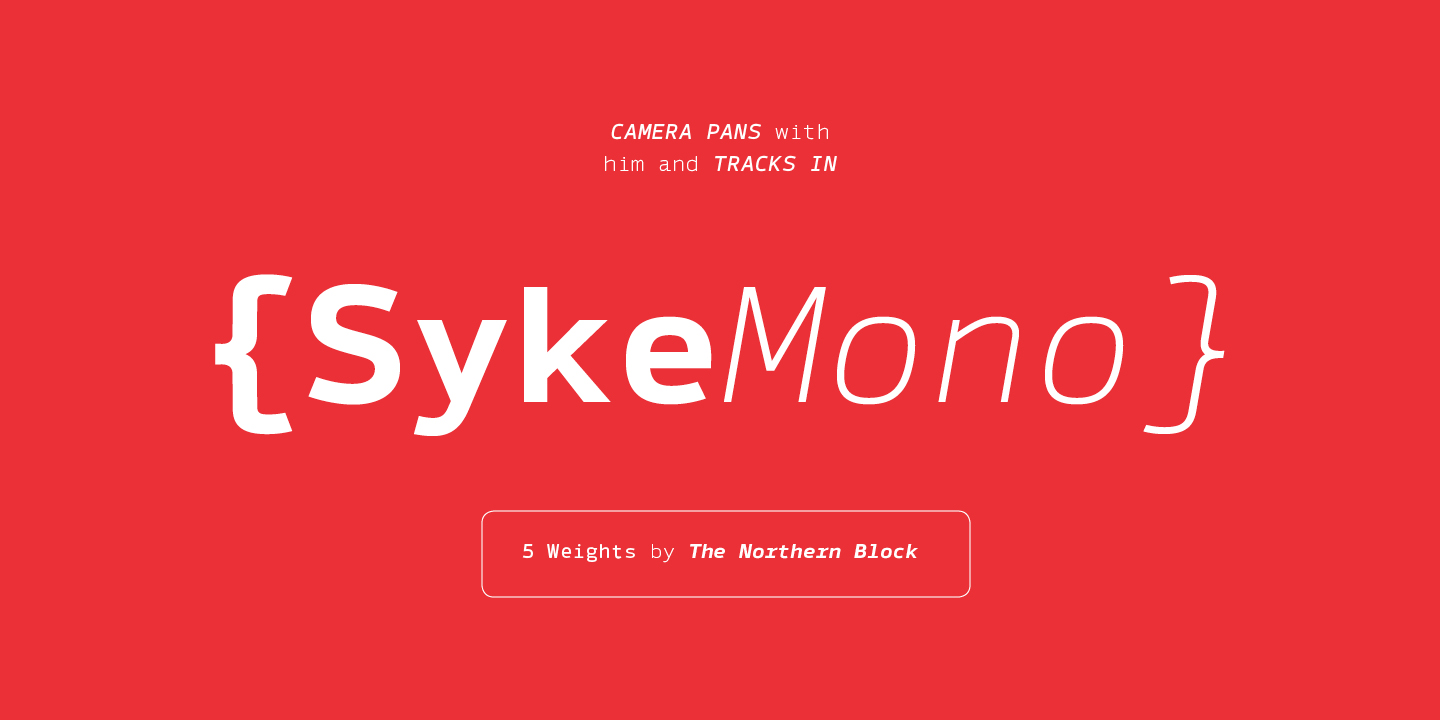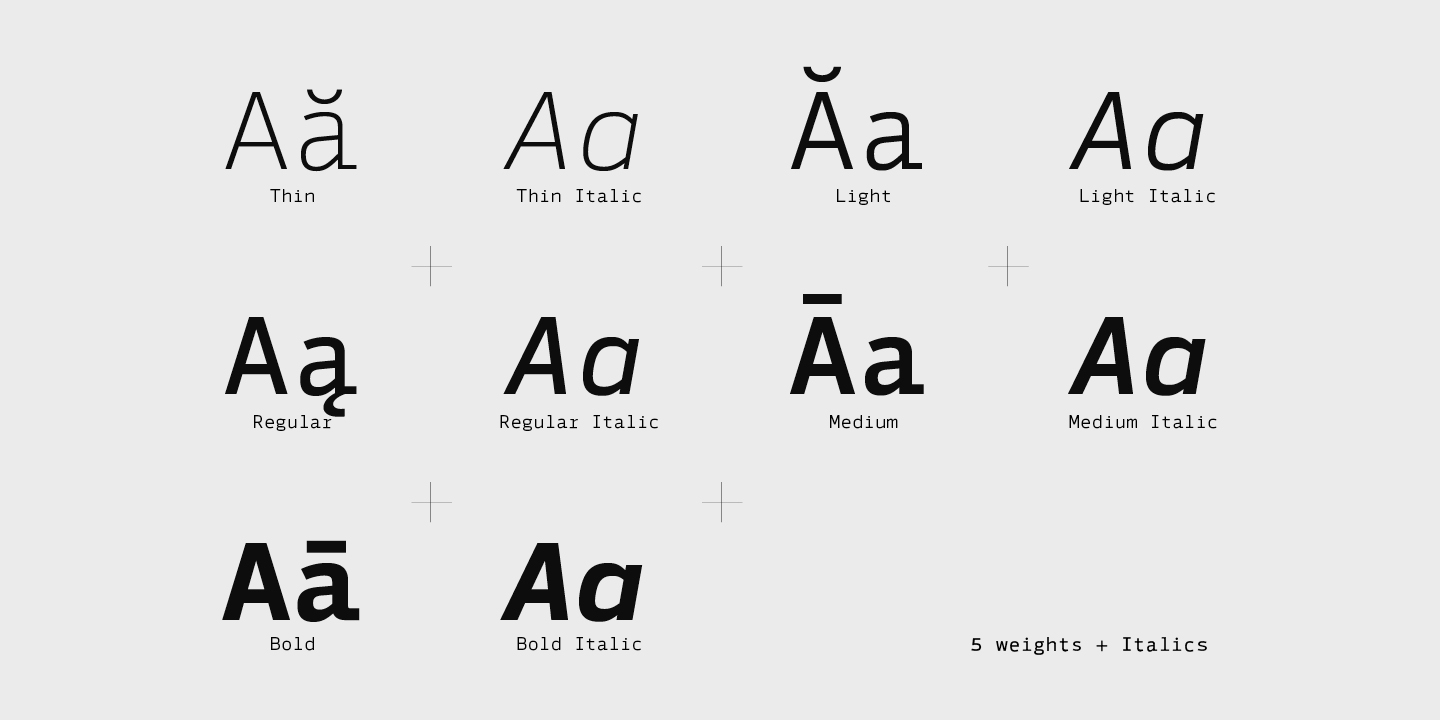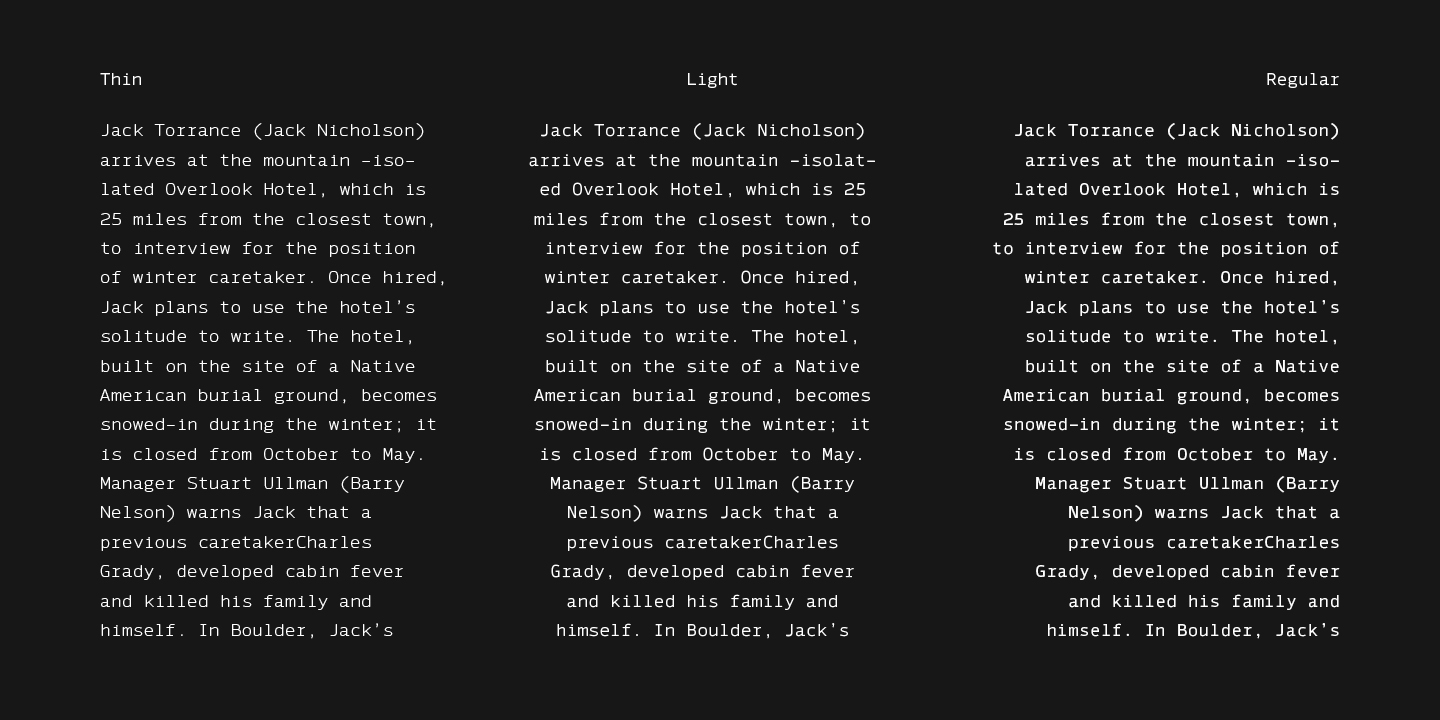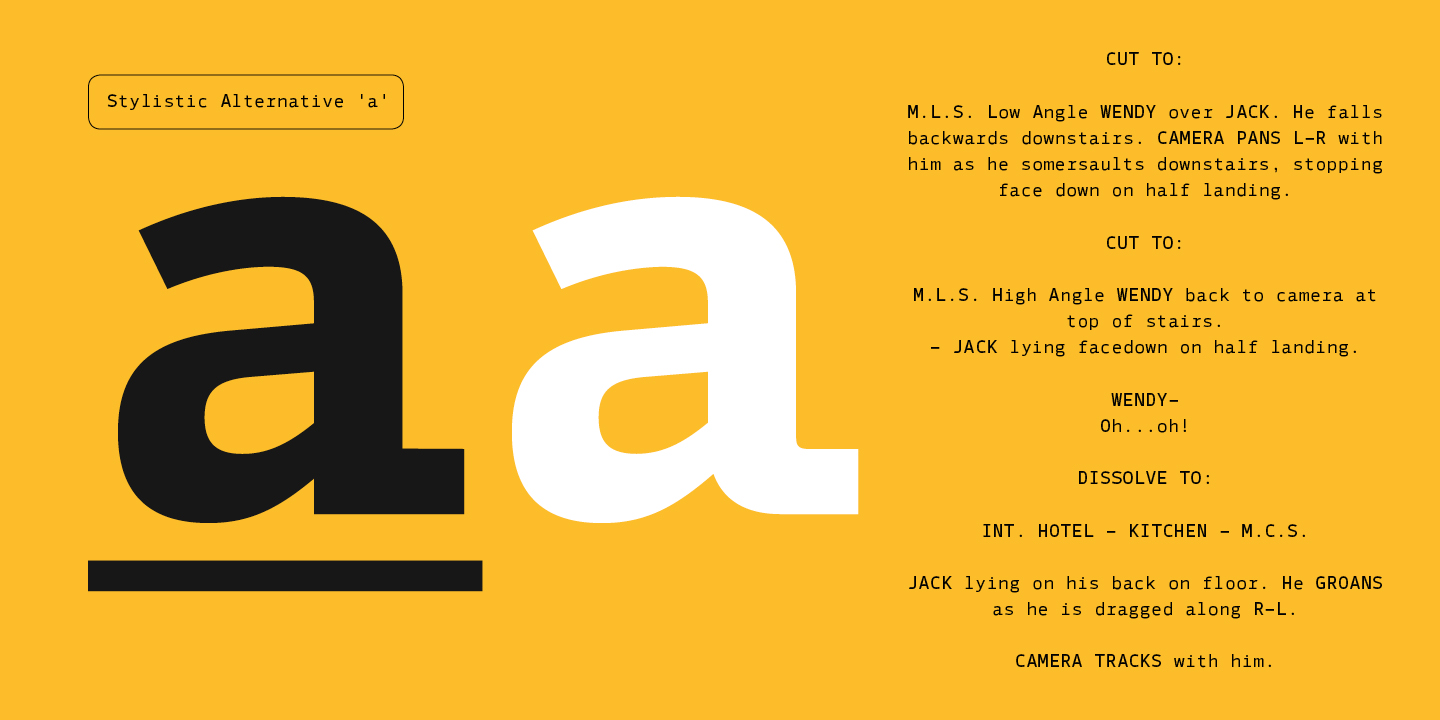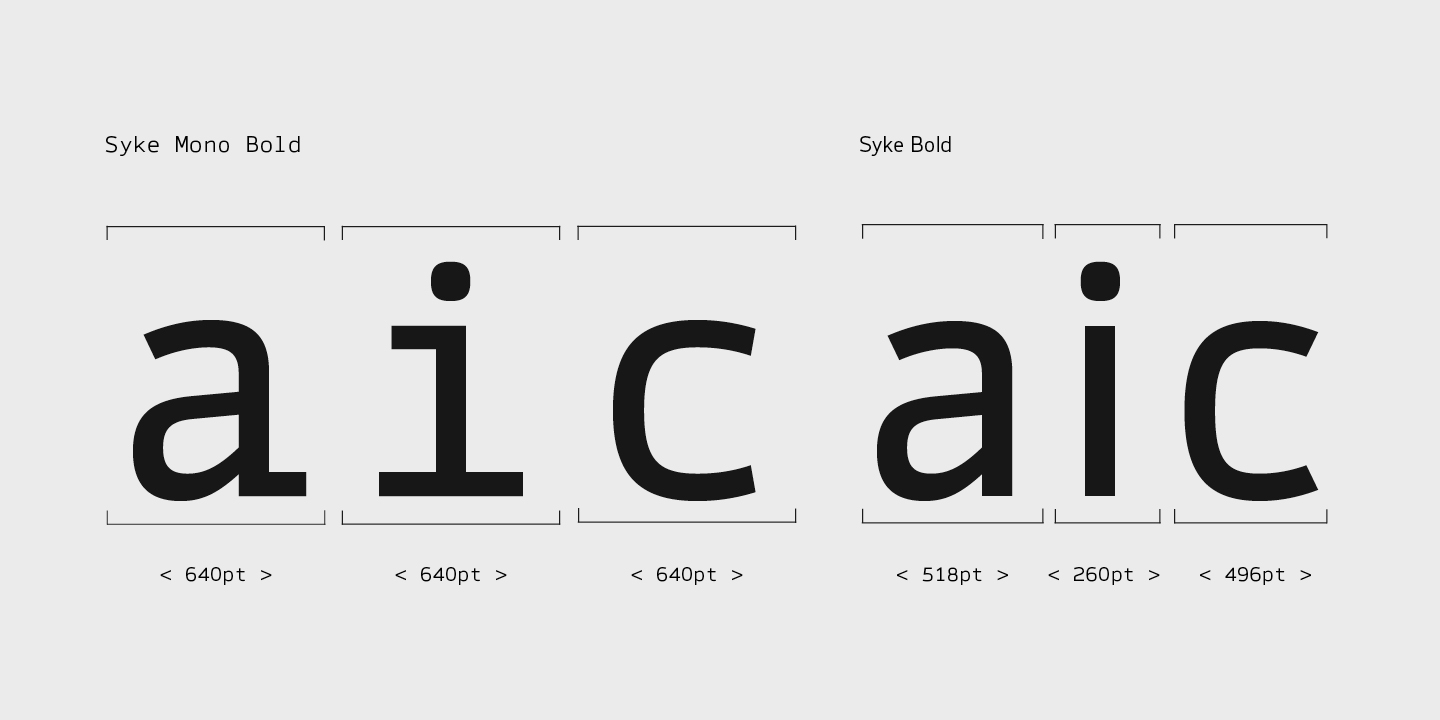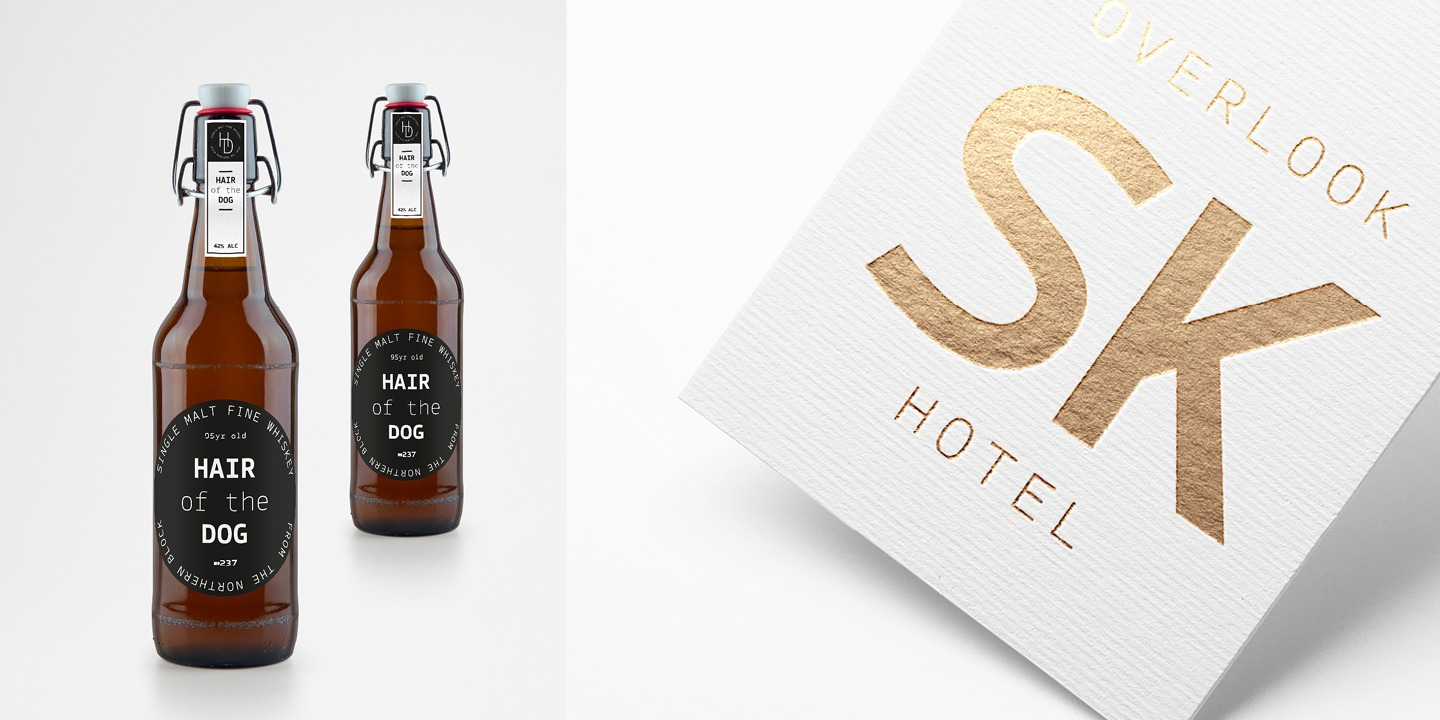
Syke Mono Font Family is a font family designed with a modern and striking style, ideal for desktop coding, database applications, e-books and other screen-based interfaces. The details include five weights and italics, over 590 characters with an alternate lowercase letter. Five digit variations, kerning and Opentype features are hand-edited.